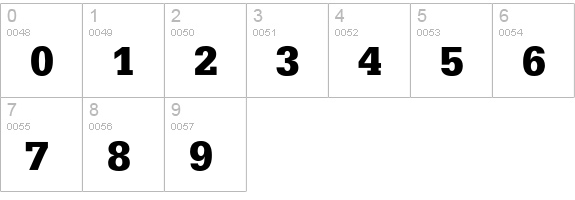
Serifa Bold is a strong, high-contrast variant in the Serifa typeface family \xE2\x80\x94 well suited to headlines, attention-grabbing titles, and strong calls-to-action.
Serifa Bold is a captivating and versatile font that effortlessly commands attention. With its bold and powerful strokes, this font exudes confidence and authority, making it the perfect choice for headlines, logos, and any design that requires a strong visual impact. The sleek and elegant design of Serifa Bold is characterized by its clean lines and balanced proportions. Each letter is meticulously crafted to ensure maximum legibility, even at smaller sizes. Whether used in print or digital media, this font maintains its clarity and readability, ensuring that your message is effectively conveyed to your audience. One of the most appealing aspects of Serifa Bold is its versatility. It seamlessly adapts to various design styles, making it suitable for a wide range of projects. From modern and minimalist designs to more traditional and classic layouts, this font effortlessly enhances the overall aesthetics of any composition. What makes Serifa Bold even more enticing is that it is available for free download at FontsMarket.com. This means that designers, creatives, and enthusiasts alike can access this remarkable font without any cost. By offering this font freely, it allows for greater accessibility and encourages creativity to flourish without any barriers. In conclusion, Serifa Bold is a font that combines strength, elegance, and versatility seamlessly. Its bold and impactful design ensures that your message is heard loud and clear, while its versatility allows it to adapt to various design styles. With the added benefit of being freely available to download at FontsMarket.com, Serifa Bold is a must-have for any designer looking to make a bold statement.